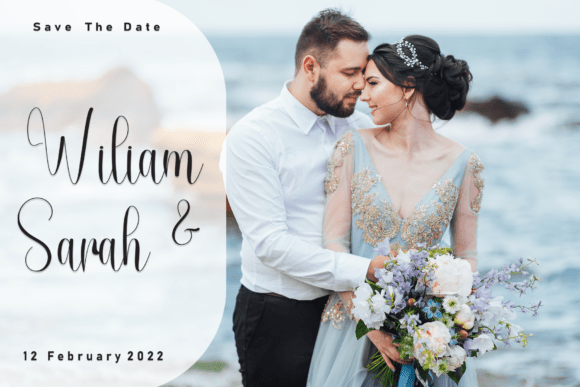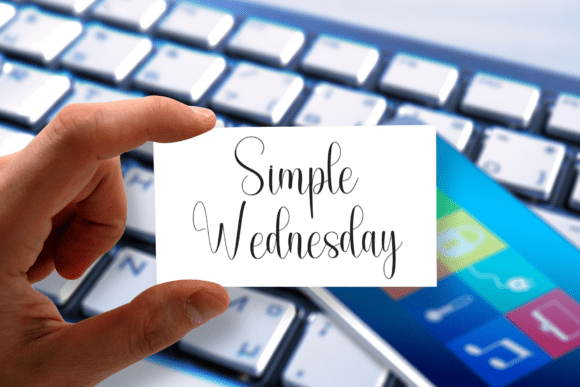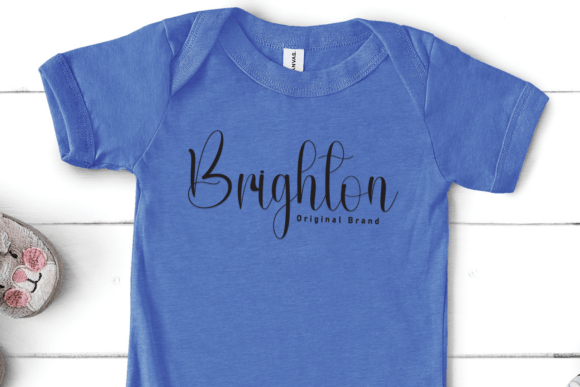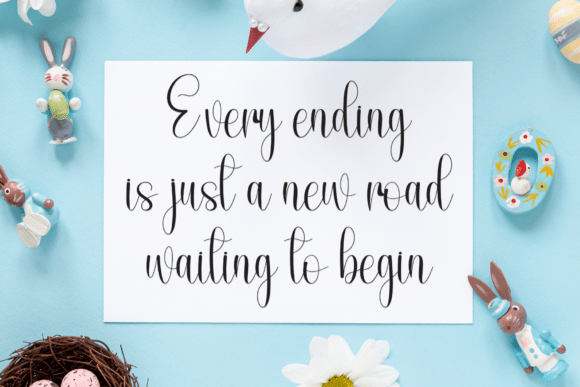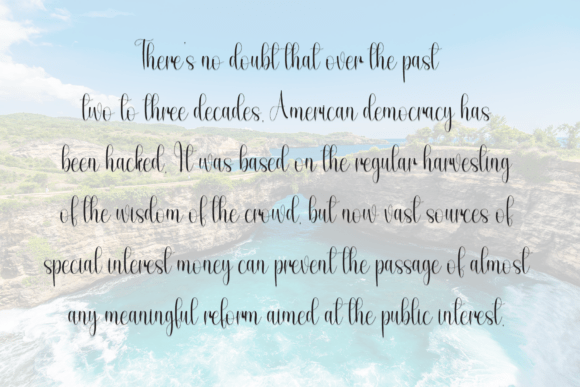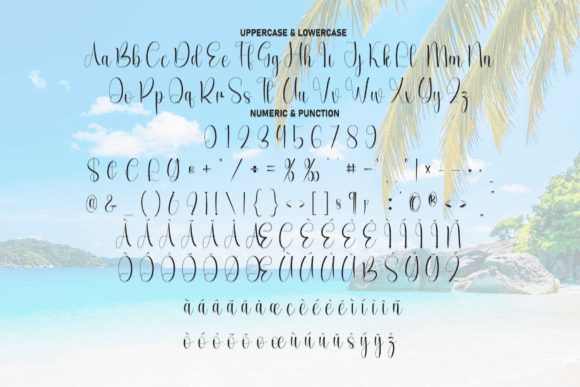
Discovering the Charm of Beach Font
As designers, we’ve all been there – staring at a blank canvas, struggling to find the perfect font to bring our creative vision to life. For me, it was a warm summer evening, surrounded by seashells and driftwood, when I stumbled upon a sweet and friendly handwritten display font that would change the way I design forever.
Meet Beach Font, a charming aesthetic that’s perfect for crafting heartfelt wedding invites, playful cards, or adding an enchanting touch to any design needing a burst of fun. Its mirthful style makes it a versatile asset for any designer looking to infuse some cheerful energy into their creative work.
Whether you’re a seasoned pro or just starting out, Beach Font is a valuable addition to your design arsenal, offering endless possibilities for creative expression and adding a touch of whimsy to your projects.
Key Features of Beach Font
- Font Family: A unique, handwritten font designed to evoke the feeling of a beachy, relaxed atmosphere.
- Unique Characteristics: Features a mix of cursive and script elements, with subtle flair and movement, giving it a natural, hand-written feel.
- Font Style: Offers a range of font styles, including regular, bold, italic, and bold-italic, to cater to different design needs.
Beach Font Review
Overall, I think Beach Font is a solid choice for projects that require a fun, laid-back vibe. ✨ The font’s relaxed feel and beach-inspired design elements work well for branding, signage, and other applications where a casual tone is desired.
- ✨ Unique design elements, such as palm trees and seashells, add visual interest and help the font stand out.
- ✨ The font’s bold and italic styles can be useful for creating emphasis and adding variety to text.
- ✨ The Beach Font family includes a range of weights, from light to bold, making it suitable for a variety of design applications.
However, I do think there are some limitations to consider. ⚠️ The font’s design can come across as a bit too kitschy or clichéd in some cases, which may not be suitable for all projects.
- ⚠️ The font’s beach theme may be too on-the-nose for projects that require a more subtle or sophisticated tone.
- ⚠️ Some users may find the font’s design elements distracting or overly ornate.
Overall, I think Beach Font is a fun and versatile font that can be a great choice for the right project. However, it’s not without its limitations, and designers should carefully consider the tone and style of their project before selecting this font.
The Beach Font is perfect for designing beach-themed projects, such as invitations, posters, and social media graphics. It’s also great for creating a fun and playful vibe in presentations and documents. Some other common use cases include:
- Beach party invitations
- Summer camp brochures
- Travel blogs and websites
- Beach-themed social media posts